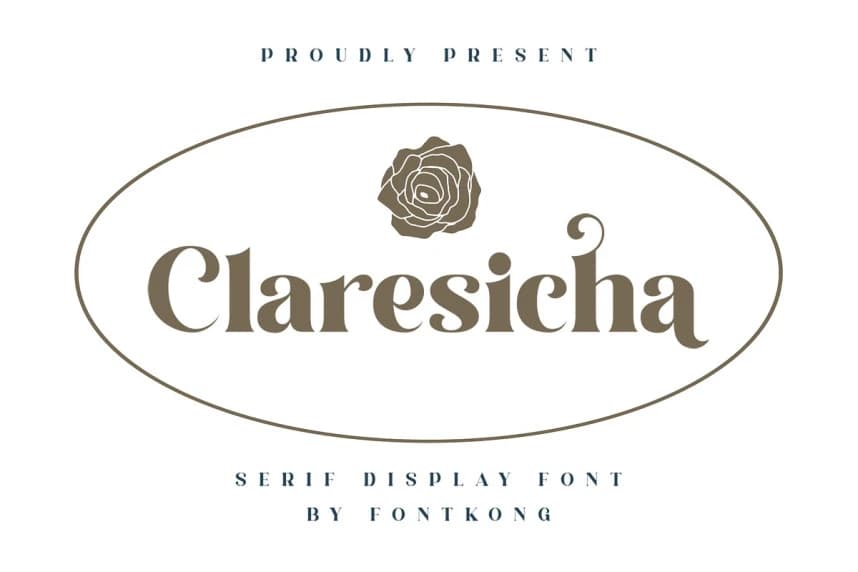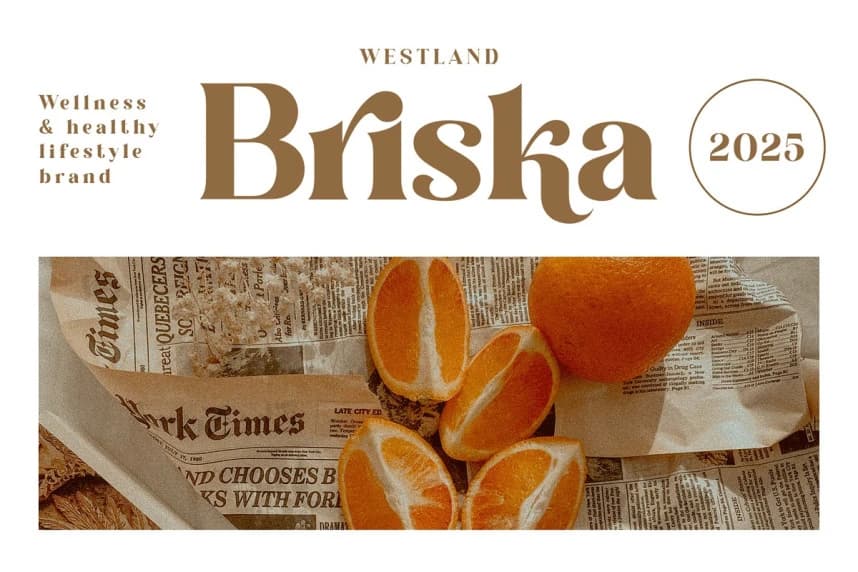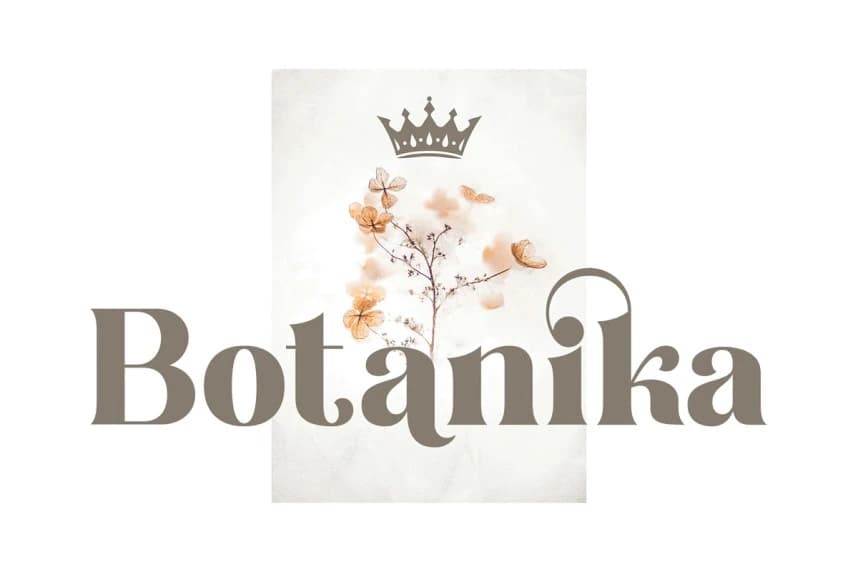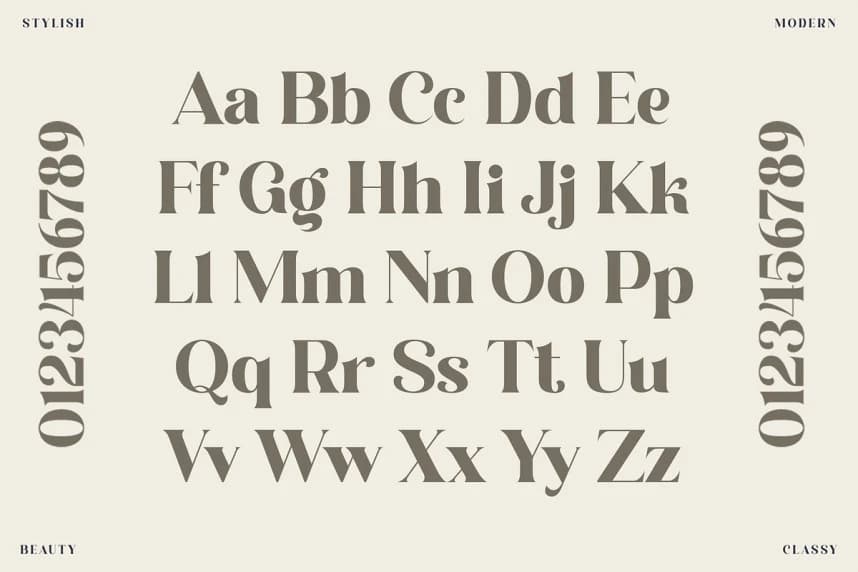
Claresicha Font
Claresicha Font, a serif display font crafted to deliver elegance, sophistication, and bold visual character. With its refined serifs, confident strokes, and striking proportions, Claresicha blends classic serif beauty with a contemporary display presence perfect for designs that demand attention wi
Claresicha Font, a serif display font crafted to deliver elegance, sophistication, and bold visual character. With its refined serifs, confident strokes, and striking proportions, Claresicha blends classic serif beauty with a contemporary display presence perfect for designs that demand attention without sacrificing grace.